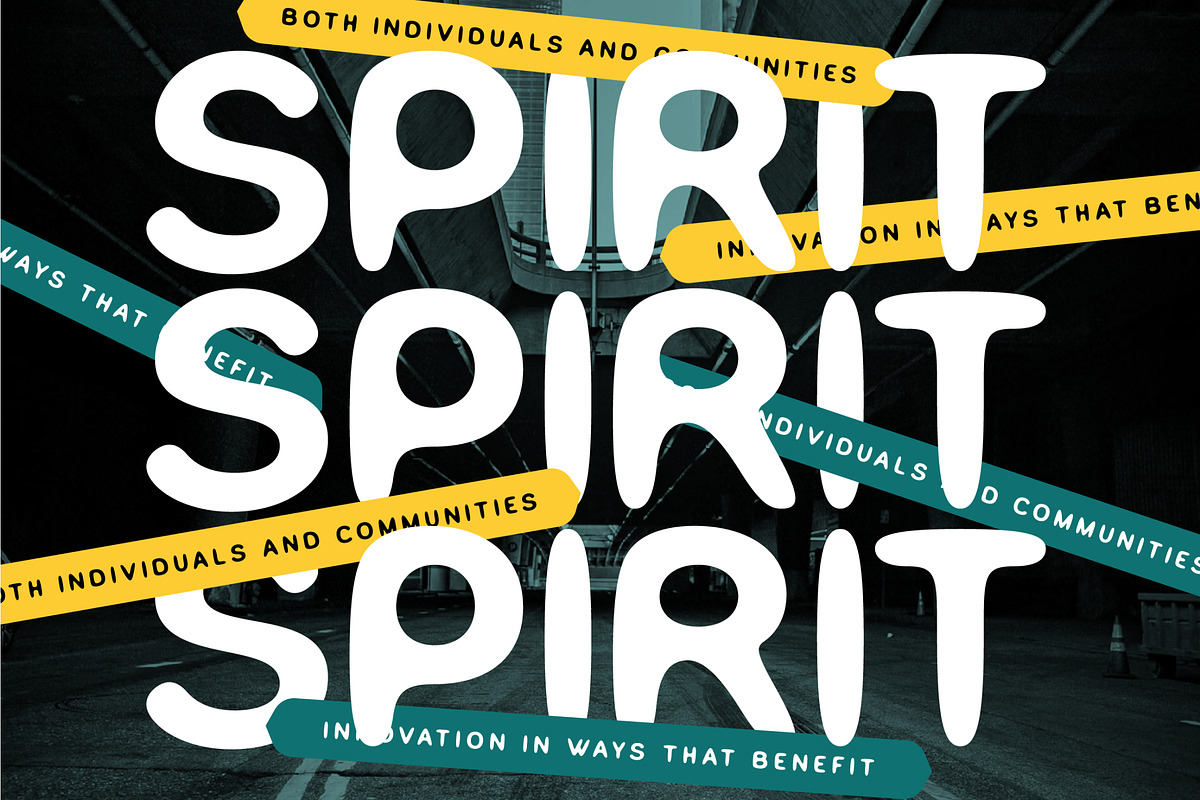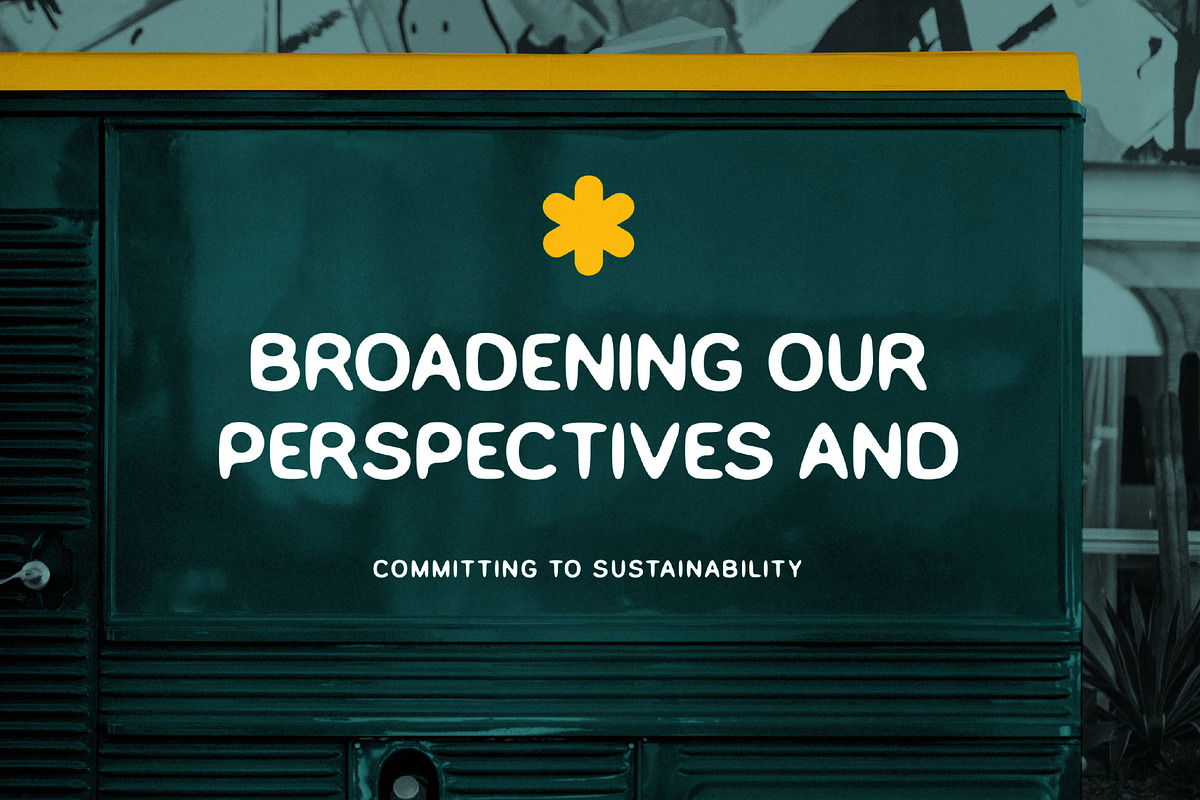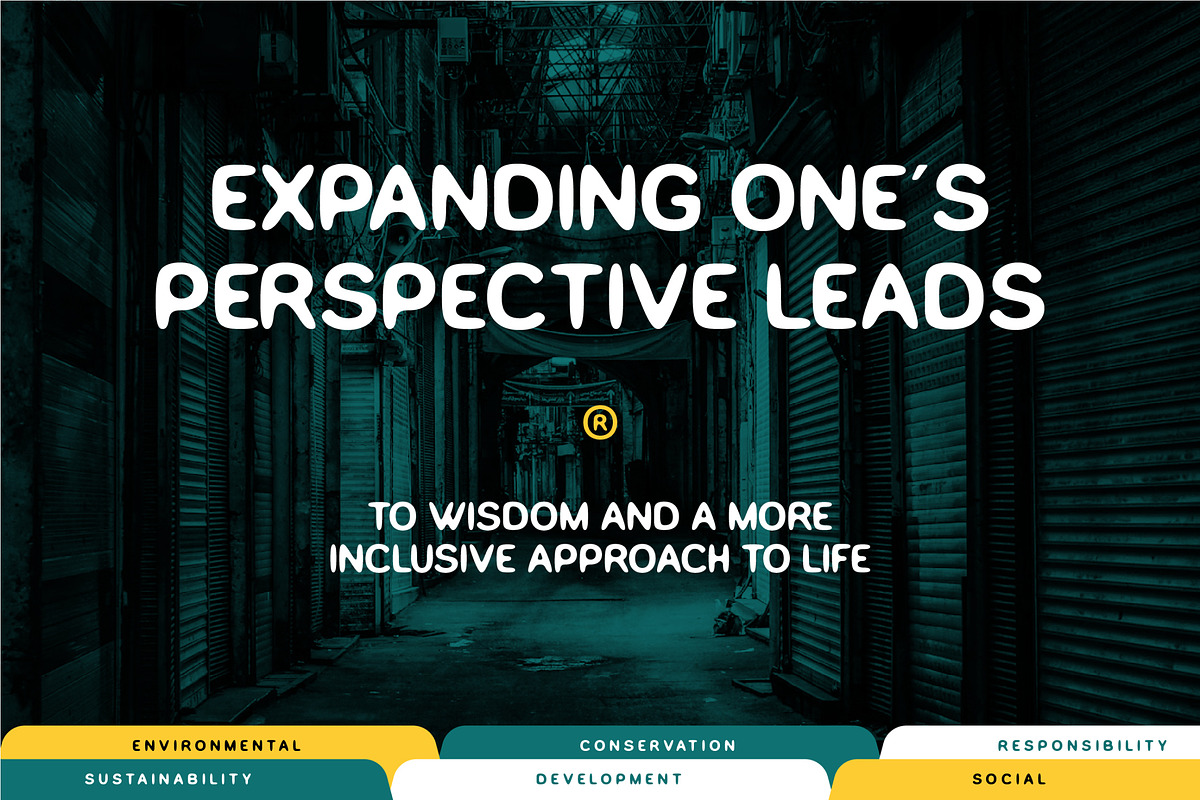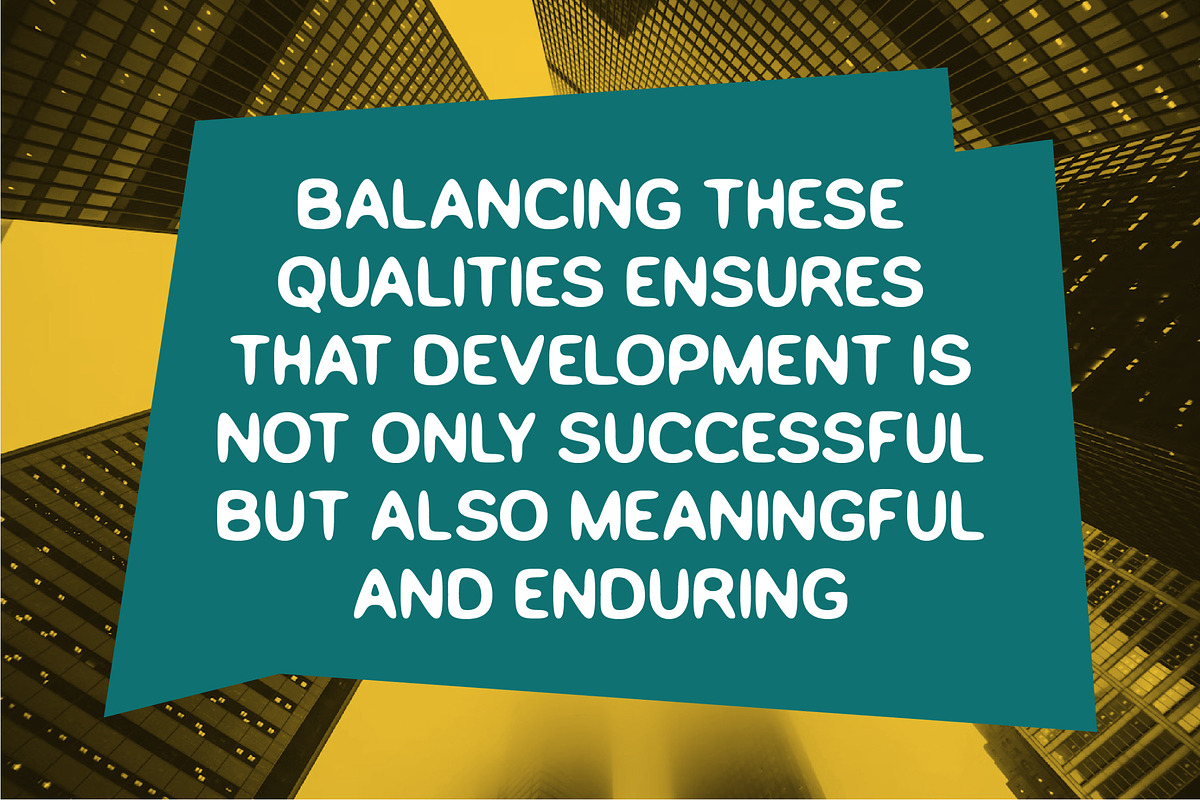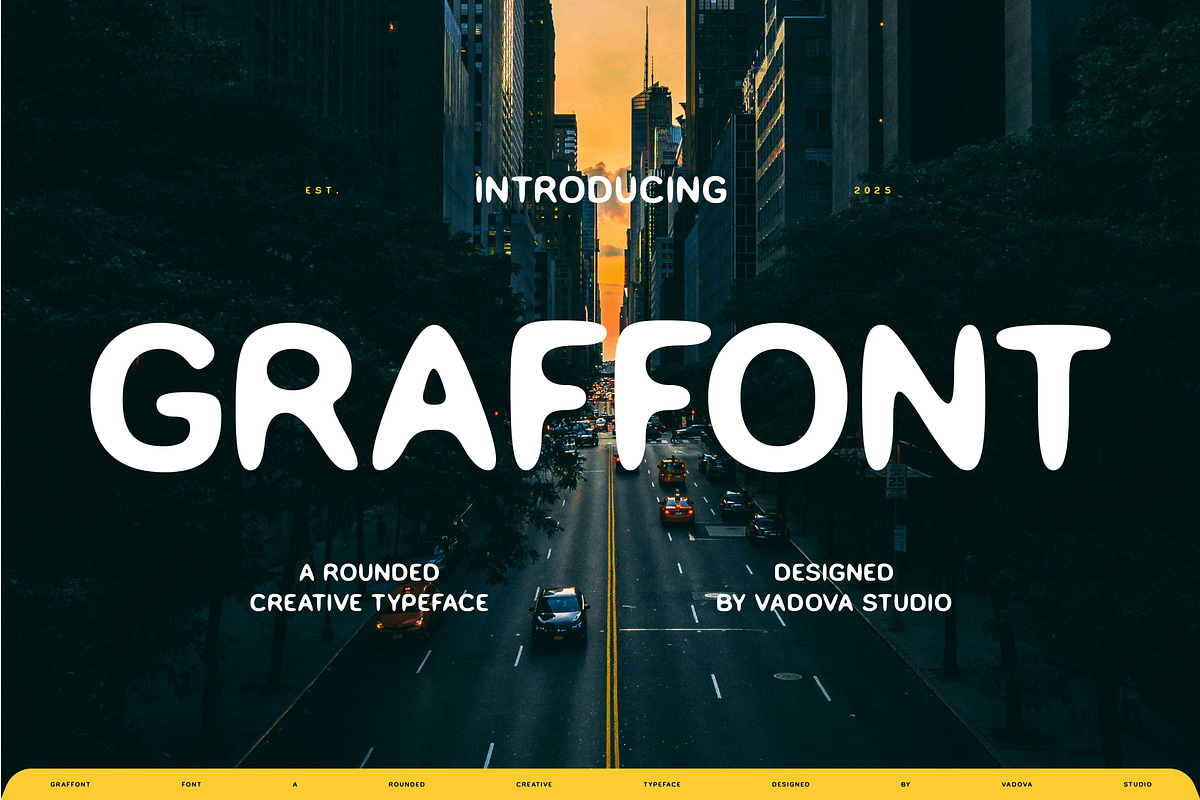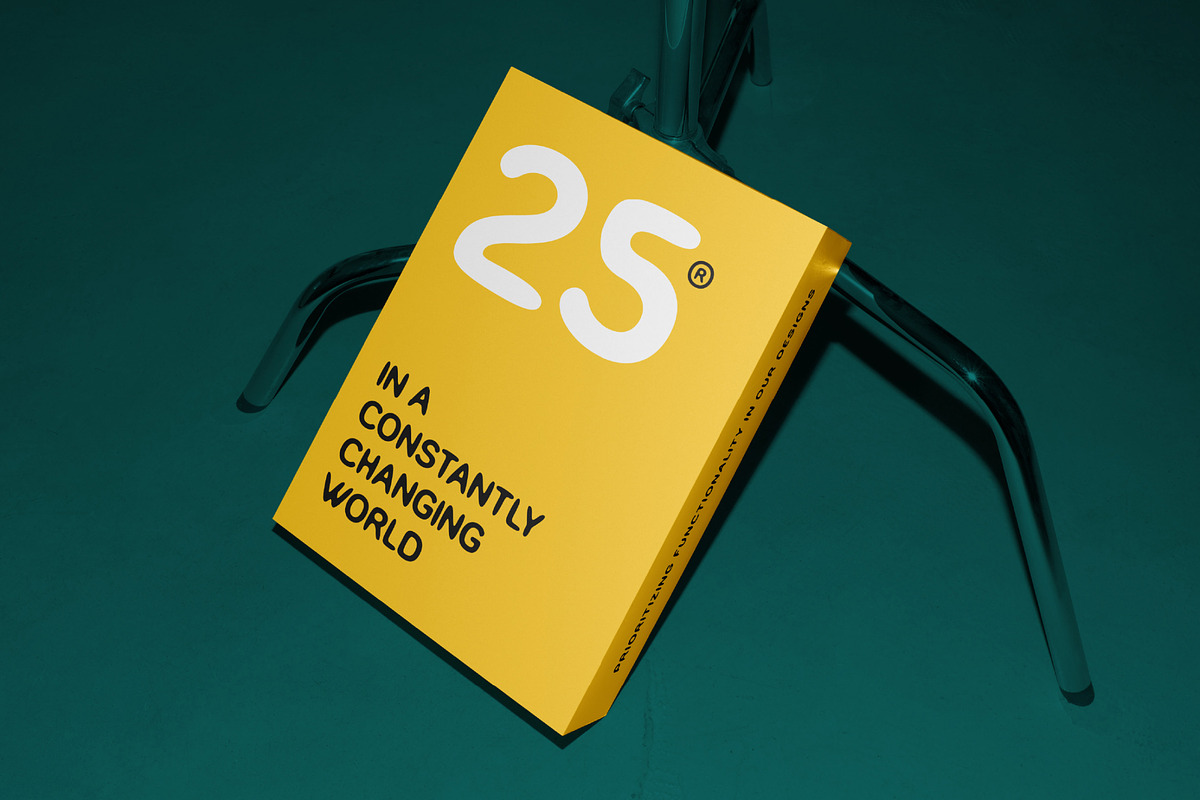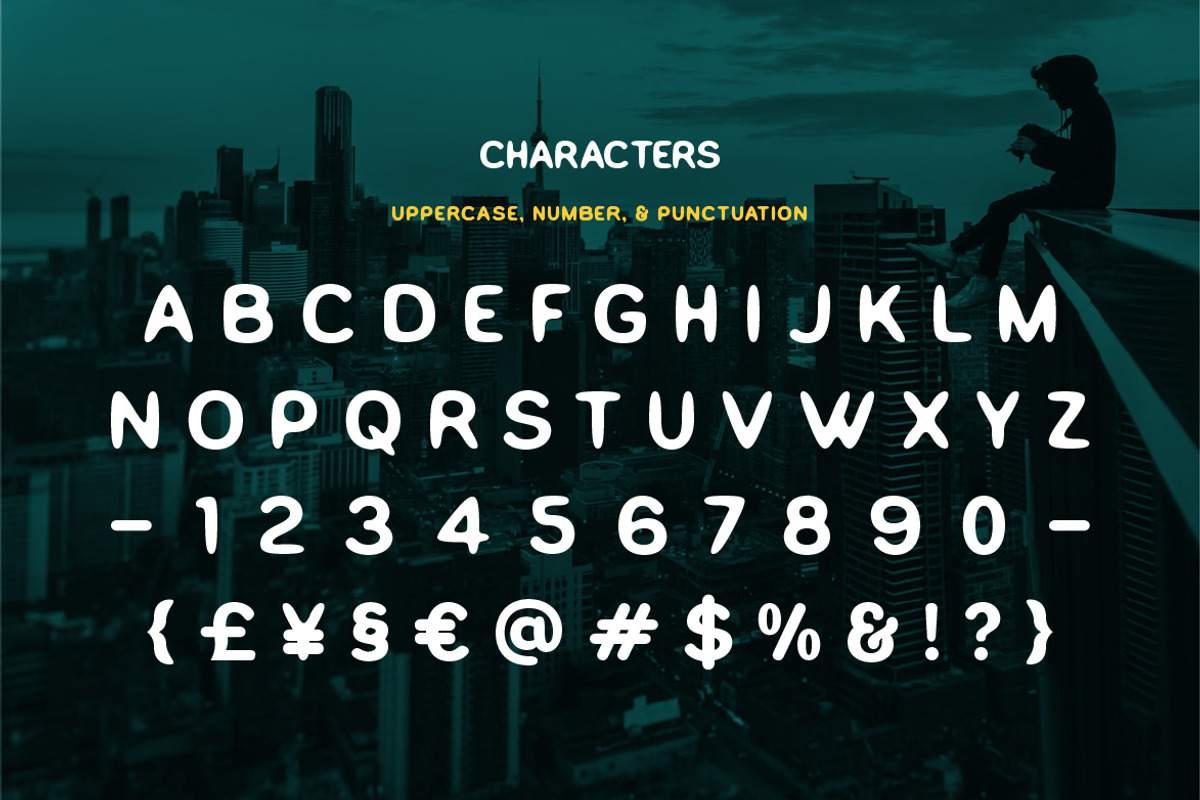
Graffont Rounded Urban Display
Graffont is a rounded display font inspired by modern graffiti and street-style design. Its bold, soft-edged shapes create a friendly yet confident tone, making it ideal for branding, posters, and youthful creative works.
The smooth geometry of each letter provides a fun, approachable vibe—perfect for digital campaigns, apparel design, and logo identities that need a touch of urban personality. Graffont brings the spirit of creativity and the city’s playful rhythm into every composition.
- Rounded bold display style with playful proportions
- Uppercase, numerals, and punctuation
- Perfect balance between modern graffiti and casual lettering
- Clean smooth outlines for easy readability
- Works great in both print and digital layouts
- Ideal for creative branding, merchandise, packaging, and editorial titles
- Delivers strong visual personality for urban and youth-oriented design
Relevance and Use Cases is perfect for streetwear branding, graffiti-inspired posters, music album covers, social media design, digital art, playful logos, event promotions, and youth-centered creative projects.
Add a touch of playful boldness to your work with Graffont – the rounded typeface for creative freedom.